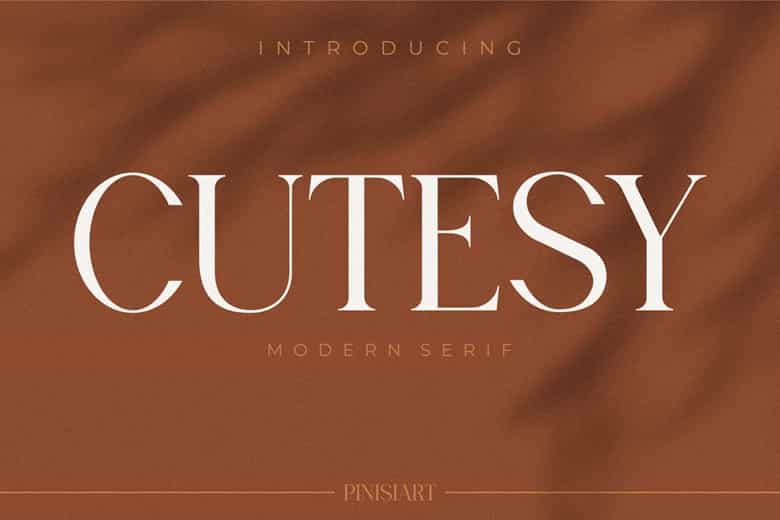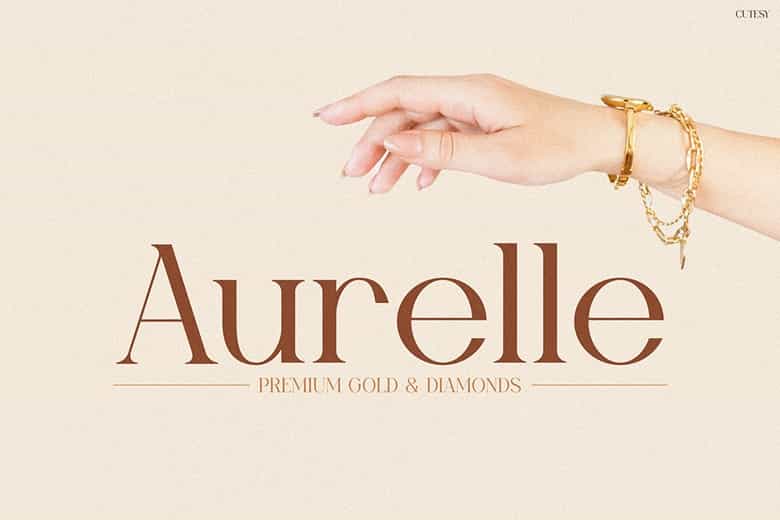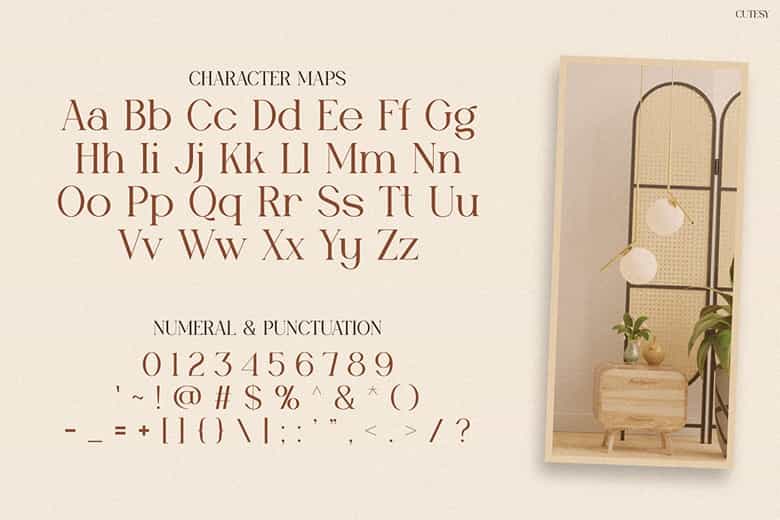
Cutesy is a serif font that looks both modern and retro at the same time. So, it greatly improves any visual production immediately. You can use this font for fashion, jewelry or lifestyle brands and it will give warm and luxurious results. Because of its sharp serifs and soft curves, It looks refined but still welcoming. Because of this, every word seems carefully chosen and elegantly crafted and every word looks lavish and warm.